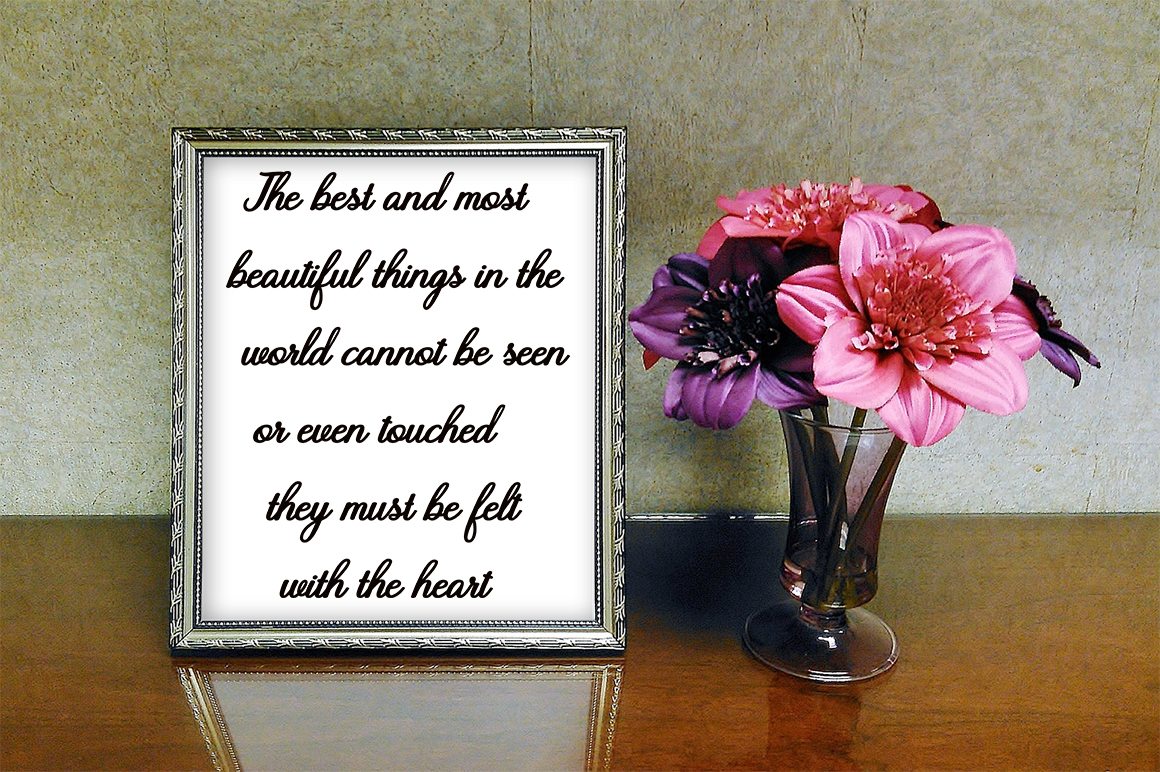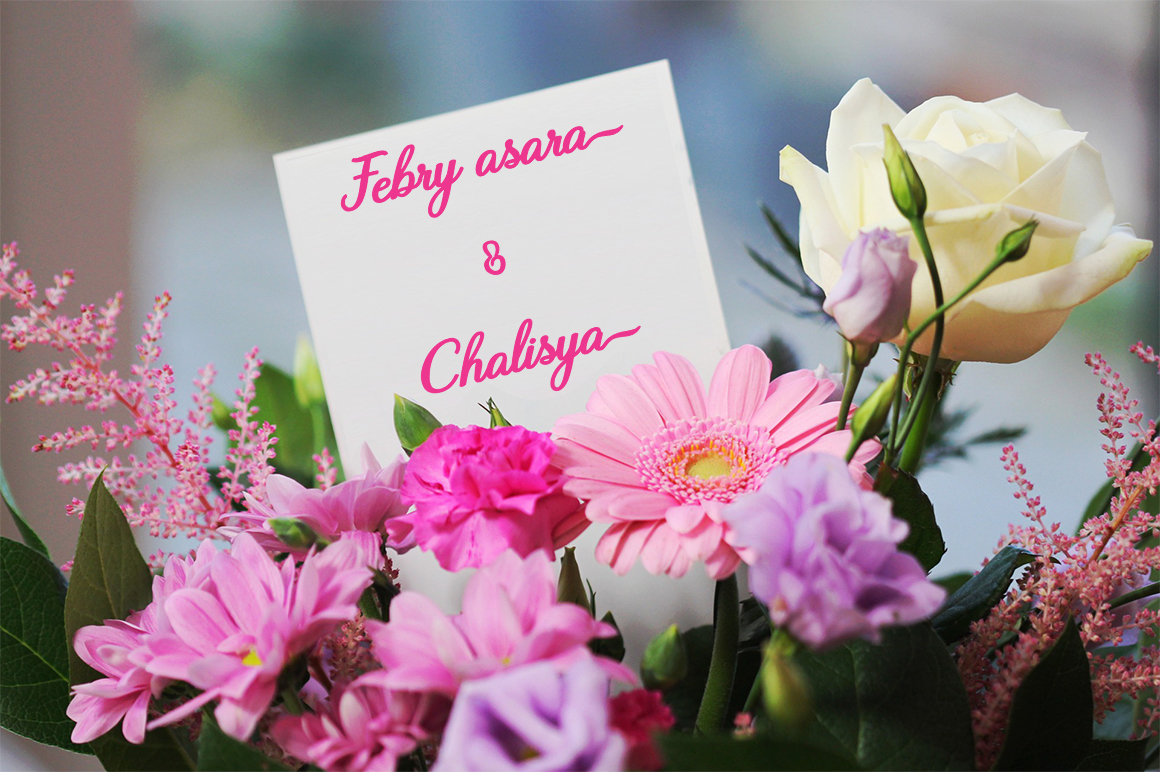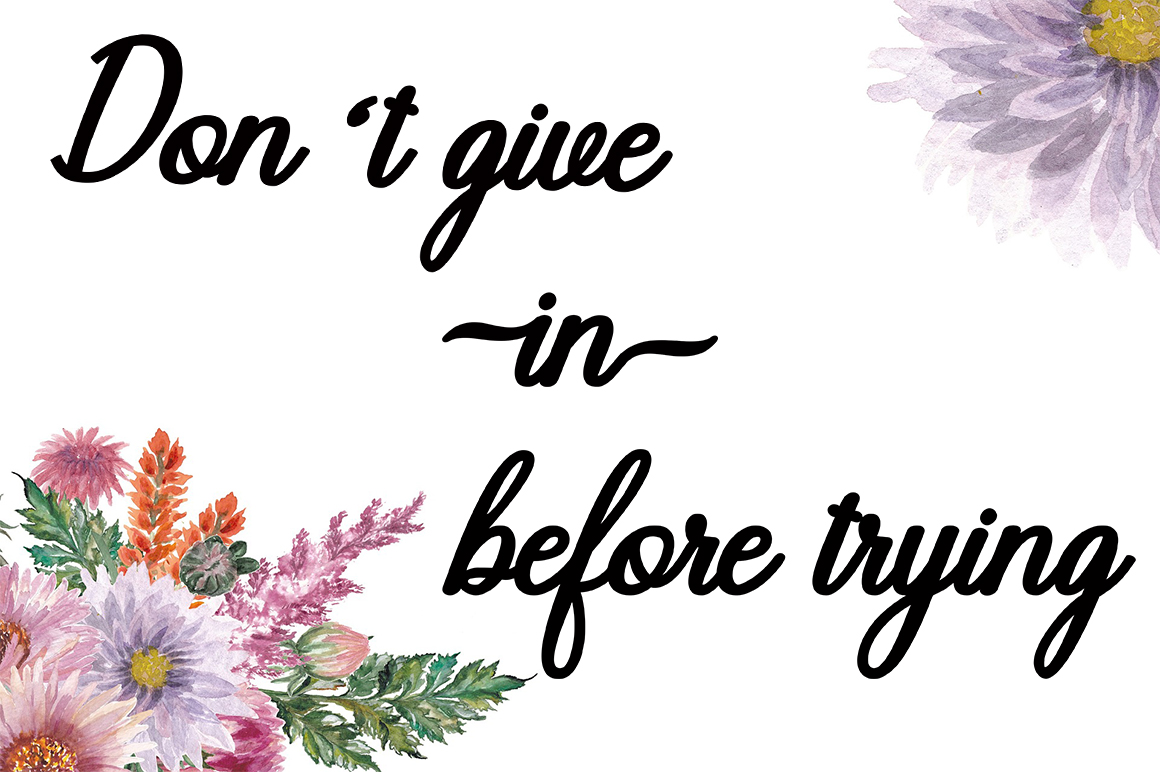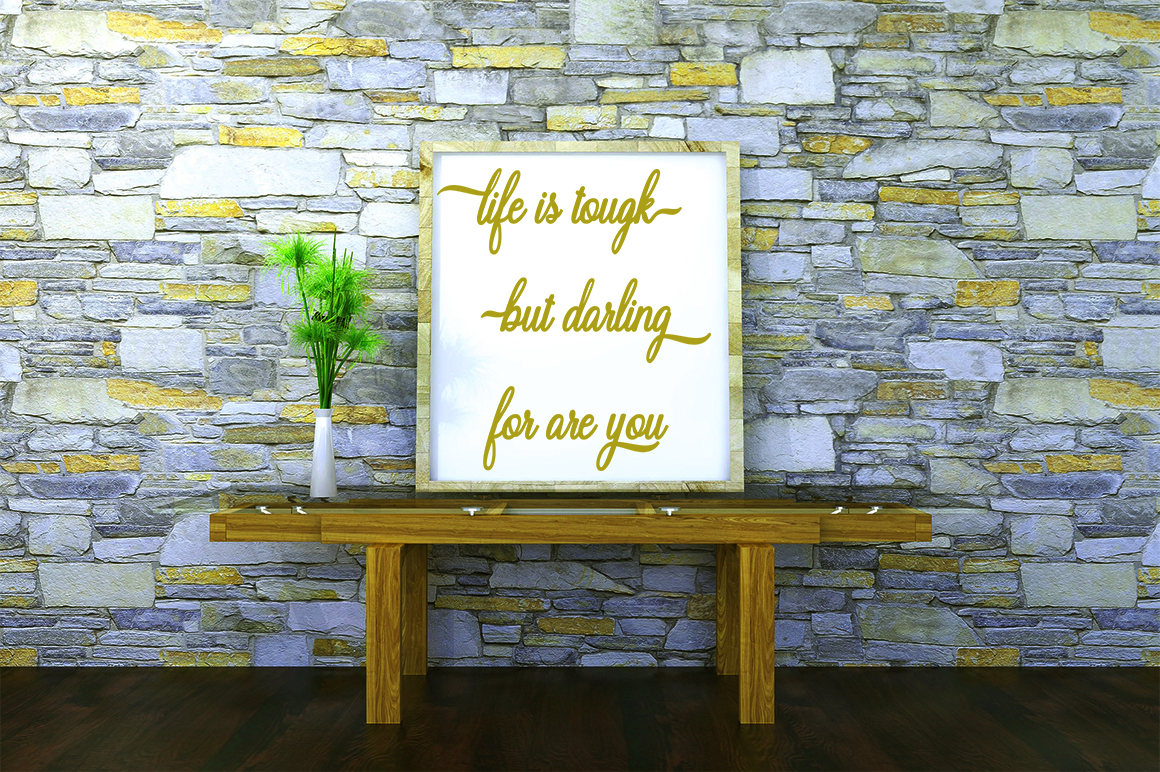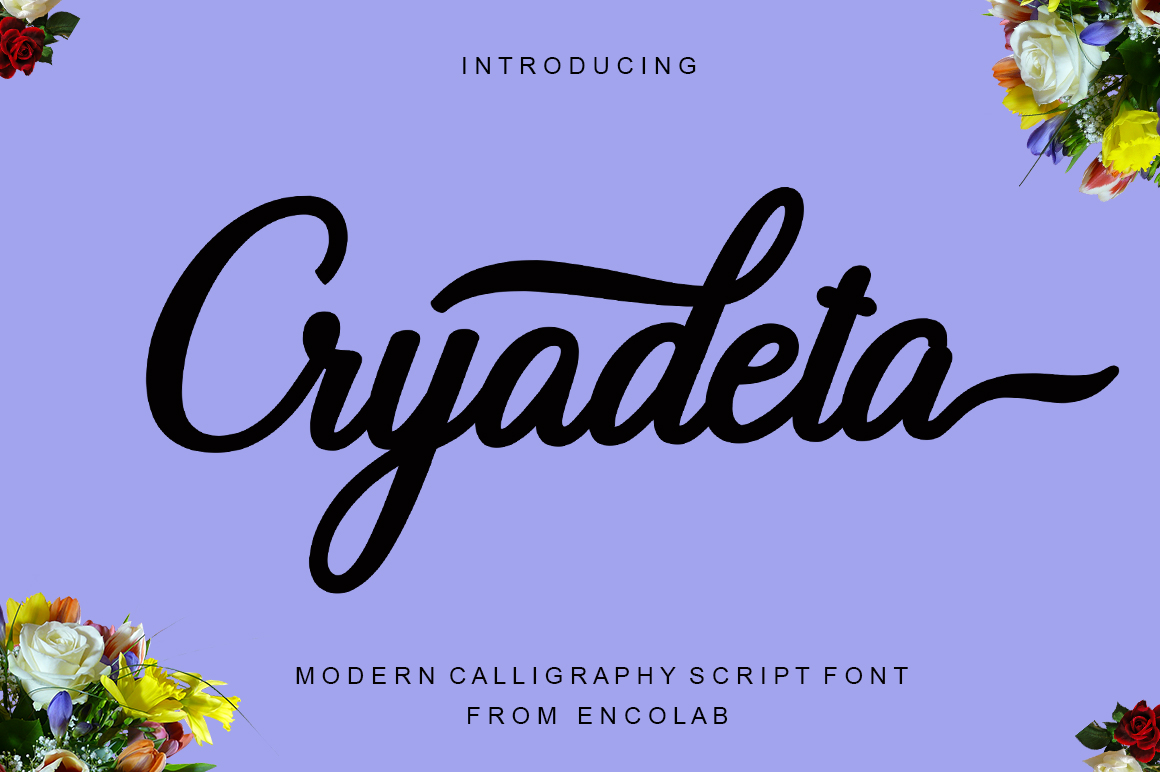
Cryadeta Script Font
Cryadeta Script is a modern handwritten font with handwritten suitable for logo, product packaging, branding, headlines,  labels, book covers, posters, quotes and more.This font replaces all lowercase letters, also comes with ligatures and unique and beautiful alternatives as well as international support for most western languages. Fonts include (OTF & TTF).How to access all of the alternate characters: